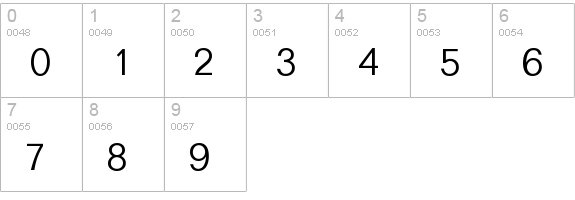
Focus-Light-Regular is a refined, elegant variant in the Focus typeface family \xE2\x80\x94 well suited to elegant body text, refined sub-headings, and luxury branding.
Introducing Focus-Light-Regular font, a modern and versatile typeface that effortlessly combines elegance with readability. This stylish font features clean lines and a sleek design, making it perfect for a wide range of projects. Whether you're designing a logo, creating a website, or crafting a poster, Focus-Light-Regular is sure to make a bold statement. The best part? Focus-Light-Regular is completely free to download at FontsMarket.com. This means you can access this high-quality font without breaking the bank, making it a valuable addition to your font collection. With its timeless appeal and easy-to-read style, Focus-Light-Regular is a must-have for any designer looking to elevate their work. Download it today and see the difference it can make in your projects.